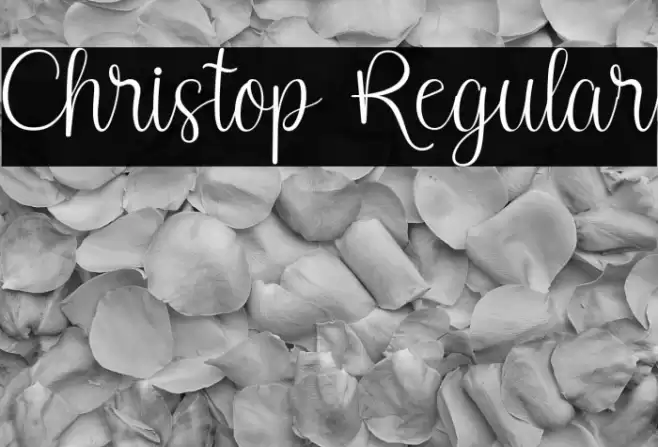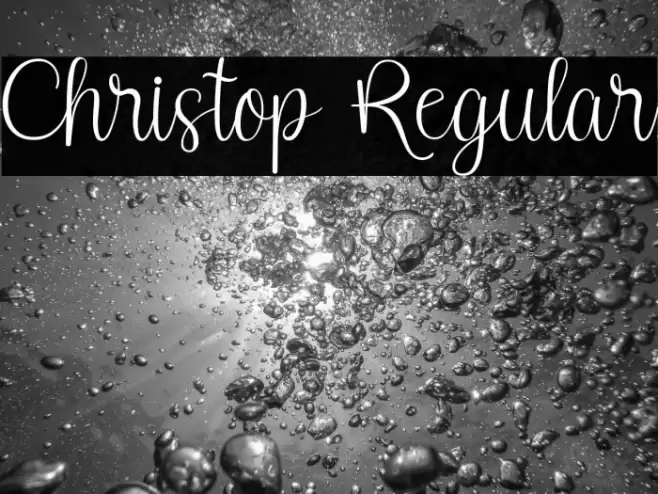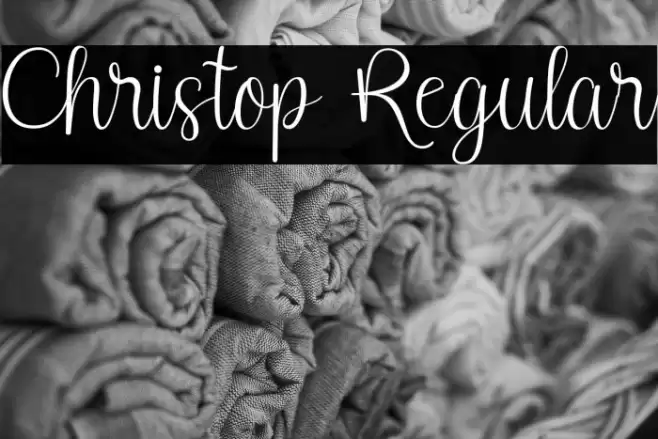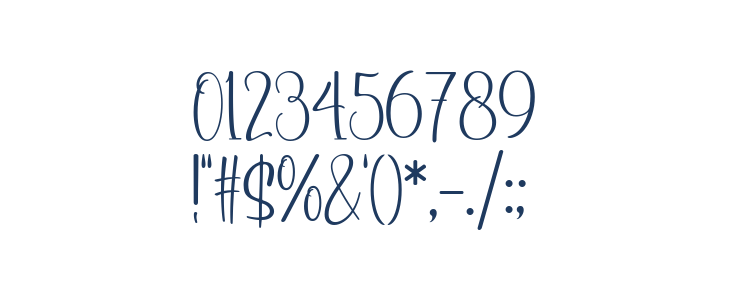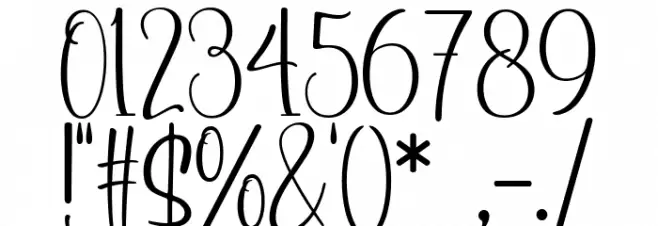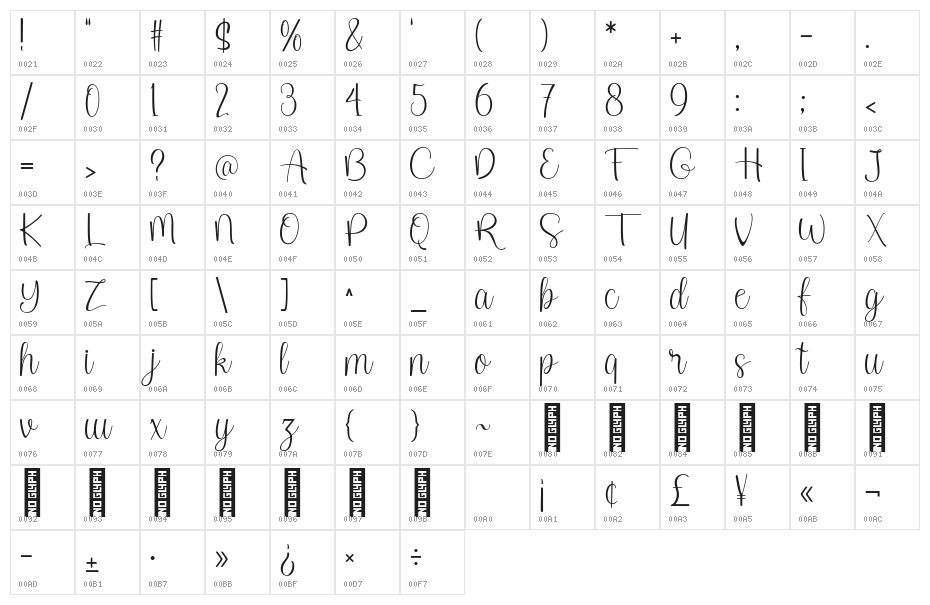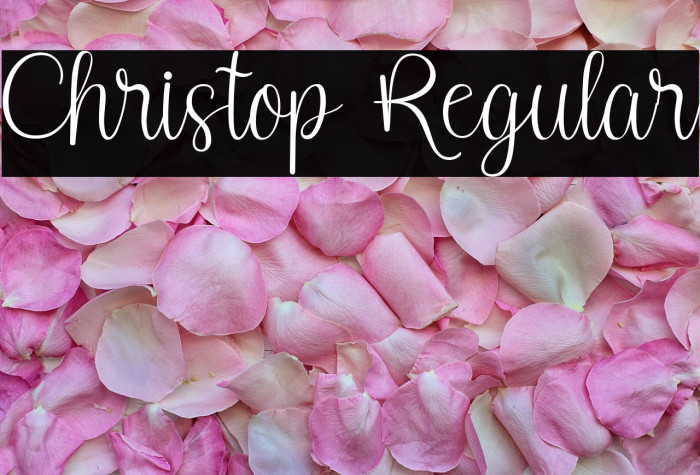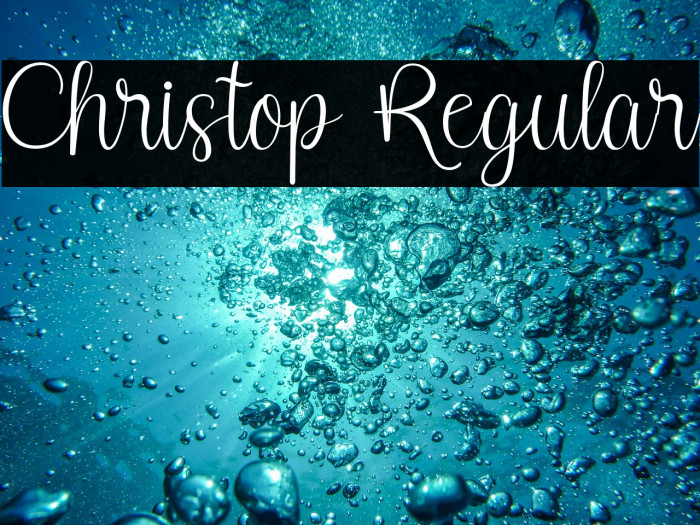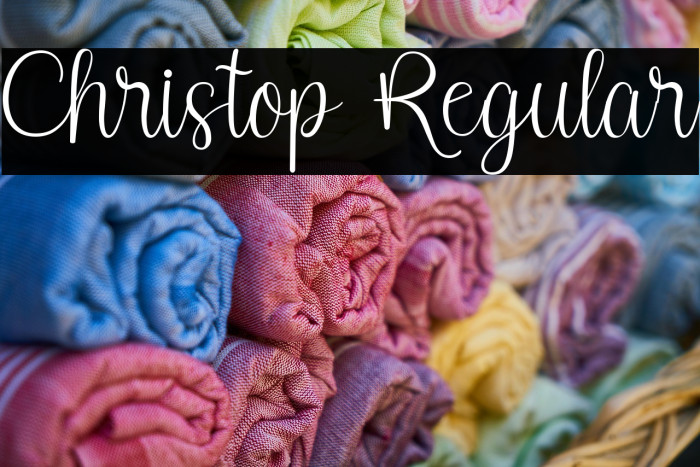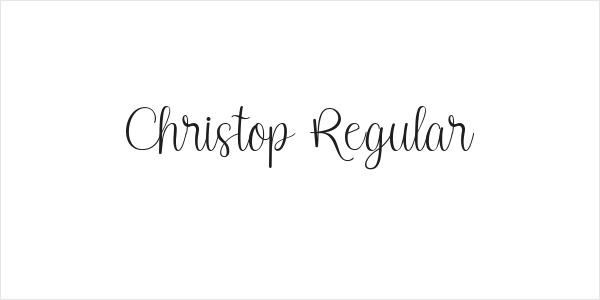
Christop Regular Font
Christop Regular Description
This font features a playful and elegant script style with a handwritten appearance. The letters are characterized by smooth, flowing curves and a consistent stroke width that gives it a harmonious look. The uppercase letters are slightly taller and more elaborate, while the lowercase letters maintain a consistent baseline, enhancing readability. The numerals are distinct and align well with the overall style, making them easy to read. Special characters are creatively integrated, maintaining the font's whimsical and artistic flair. This font's unique style makes it suitable for creative and expressive design projects.
A playful and elegant script font with a handwritten appearance from Regular fonts.